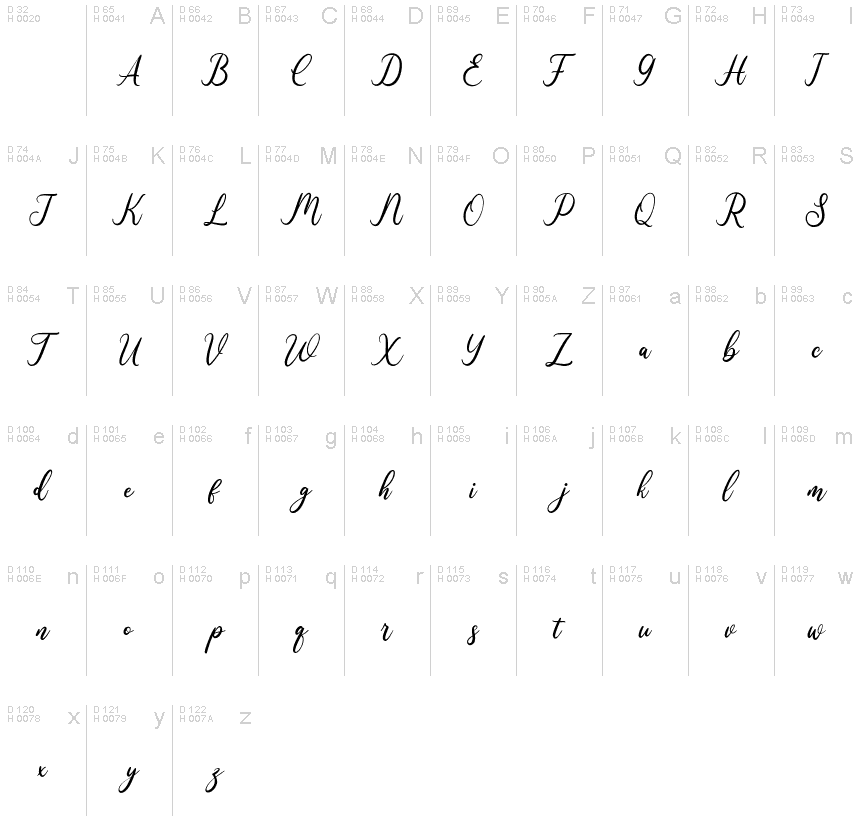
Wonder Villa Free Regular
Wonder Villa, a mesmerizing calligraphy font by Maulana Creative, adds an elegant touch to any project. With its semi-light weight, this font gracefully captures attention while maintaining readability. Perfect for wedding invitations, luxury branding, and fashion presentations, Wonder Villa exudes sophistication and refinement. Its fluid strokes and intricate details make it suitable for creating stunning logos, exquisite packaging designs, or even enchanting book covers. Let this enchanting calligraphy font elevate your creative endeavors to new heights of beauty and allure.